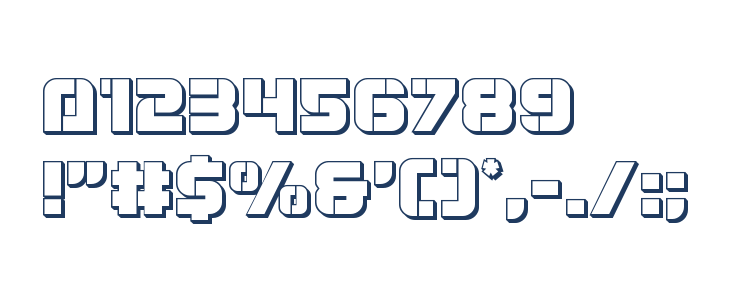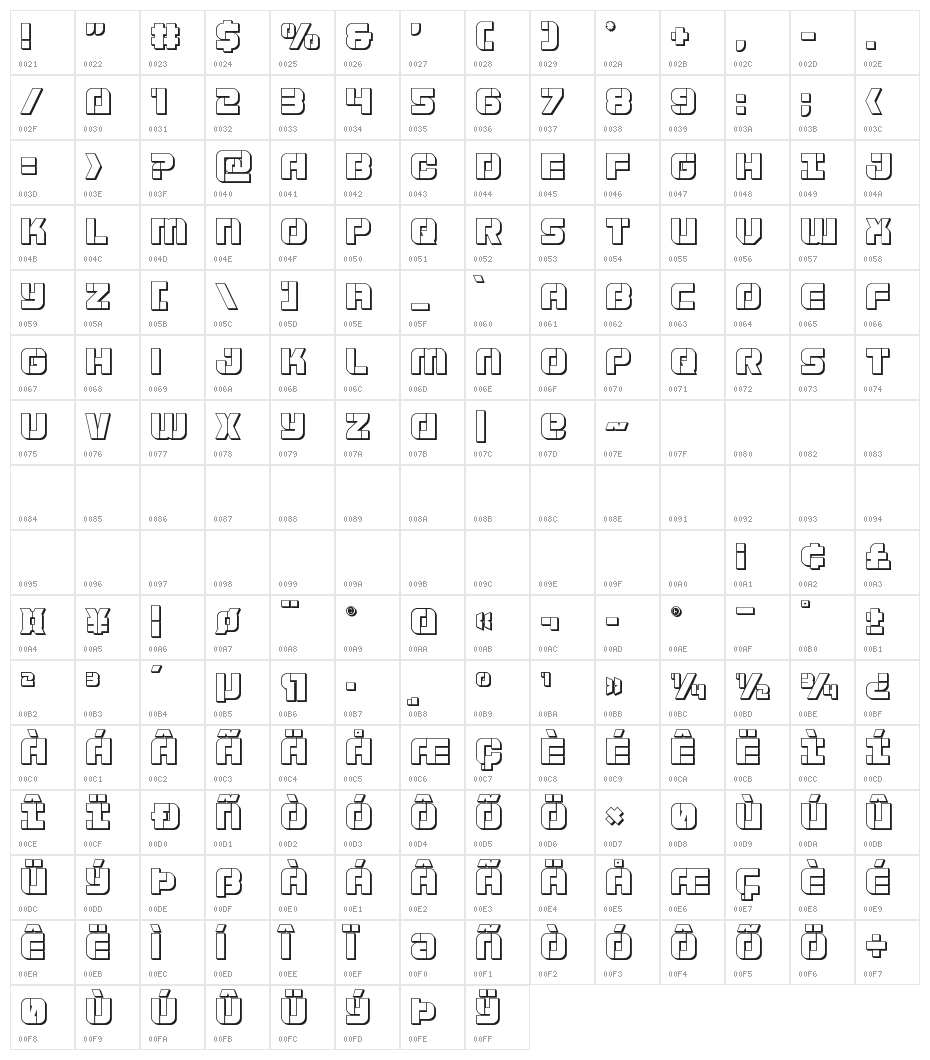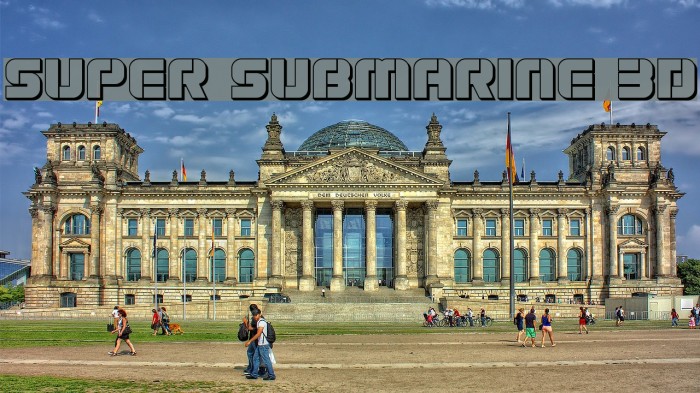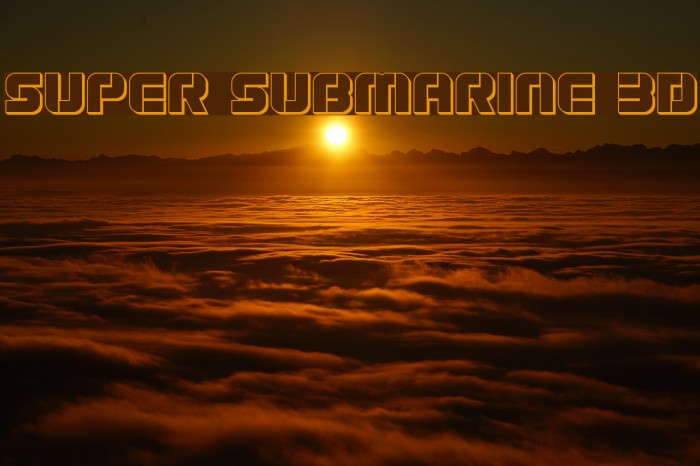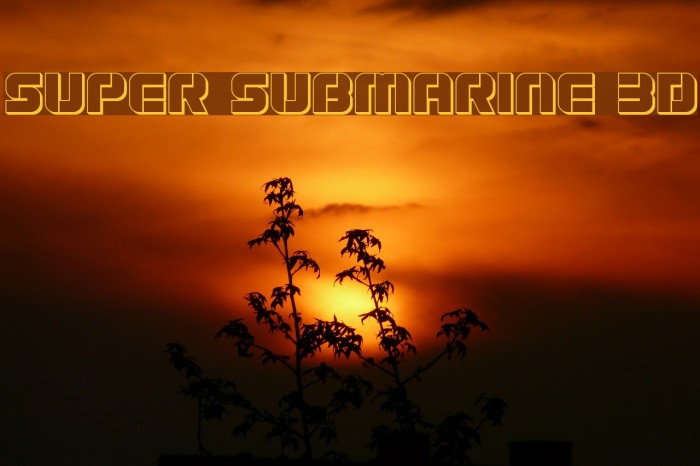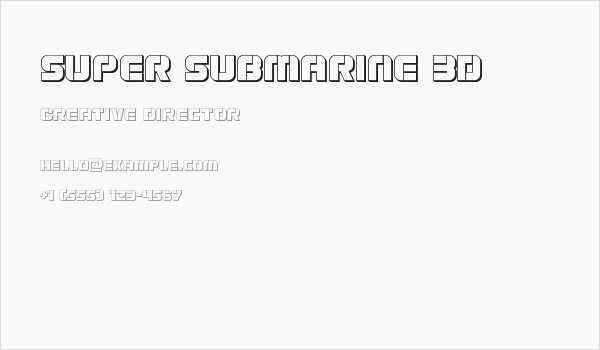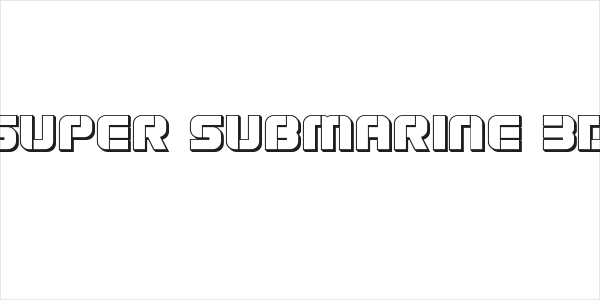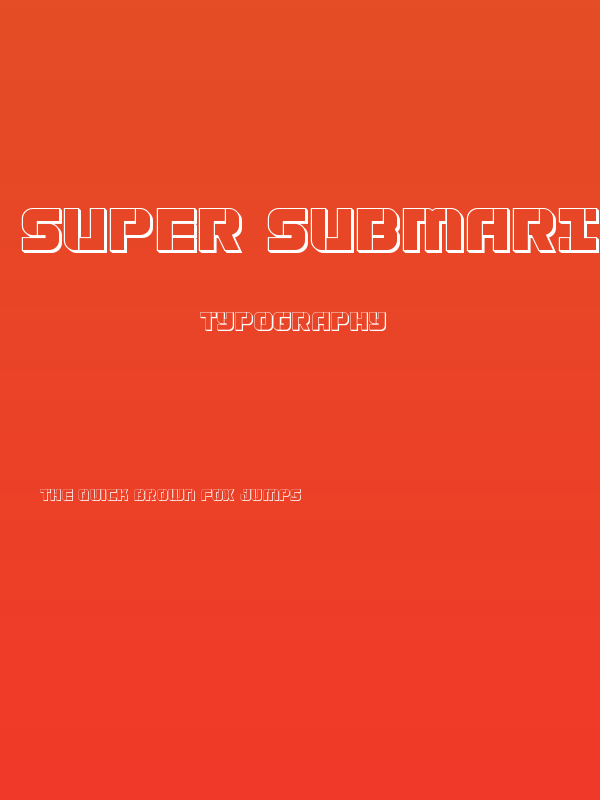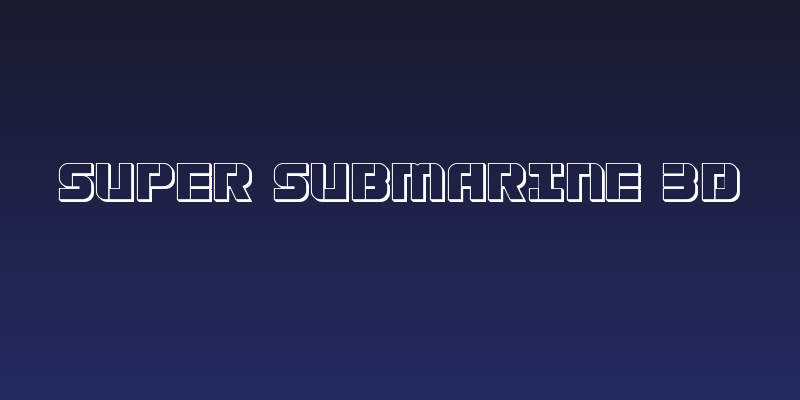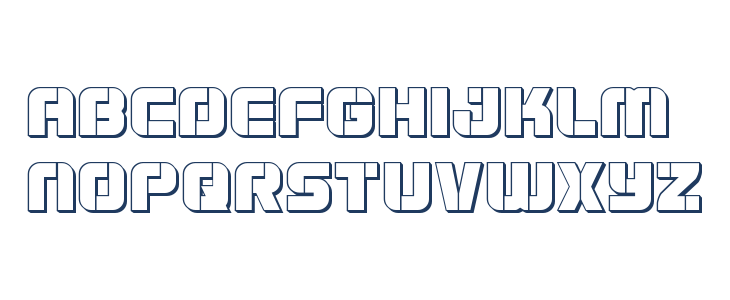
Super Submarine 3D Font
Super Submarine 3D Description
This font features a bold, geometric design with a three-dimensional effect, giving each character a sense of depth and structure. The letters are outlined with a thick border, creating a striking visual impact. The style is reminiscent of industrial or futuristic themes, with a blocky and angular appearance. The font maintains consistent proportions across uppercase, lowercase, and numerical characters, ensuring uniformity and balance. Special characters are designed to match the bold and structured aesthetic, making them suitable for attention-grabbing headlines or logos.
| Overall Style | Modern, Futuristic |
| Proposed Projects | Ideal for use in branding, logos, posters, and any design requiring a bold, futuristic look. |